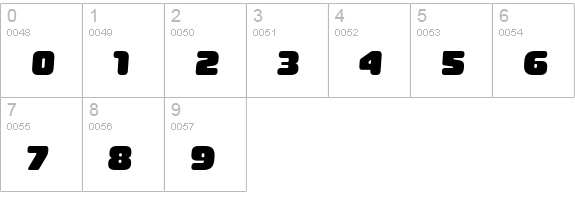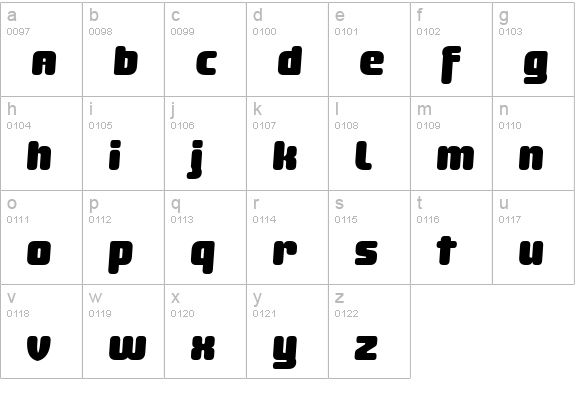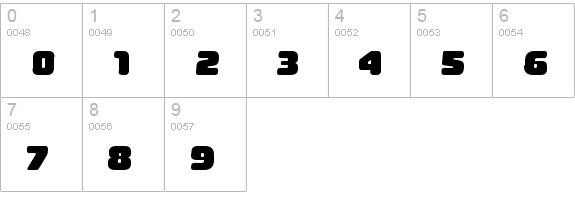
Sheaff Font Details
Sheaff font is a modern and elegant typeface that exudes sophistication and style. Its sleek lines and unique curves make it perfect for a wide range of design projects, from branding to editorial design. The font carries a sense of refinement and class that will elevate any text it is applied to. What's even better is that Sheaff font is available for free download at FontsMarket.com. This means you can easily access this stunning font and use it in your projects without any cost. Don't miss out on the opportunity to enhance your designs with the beauty of Sheaff font. Download it now and add a touch of elegance to your work.